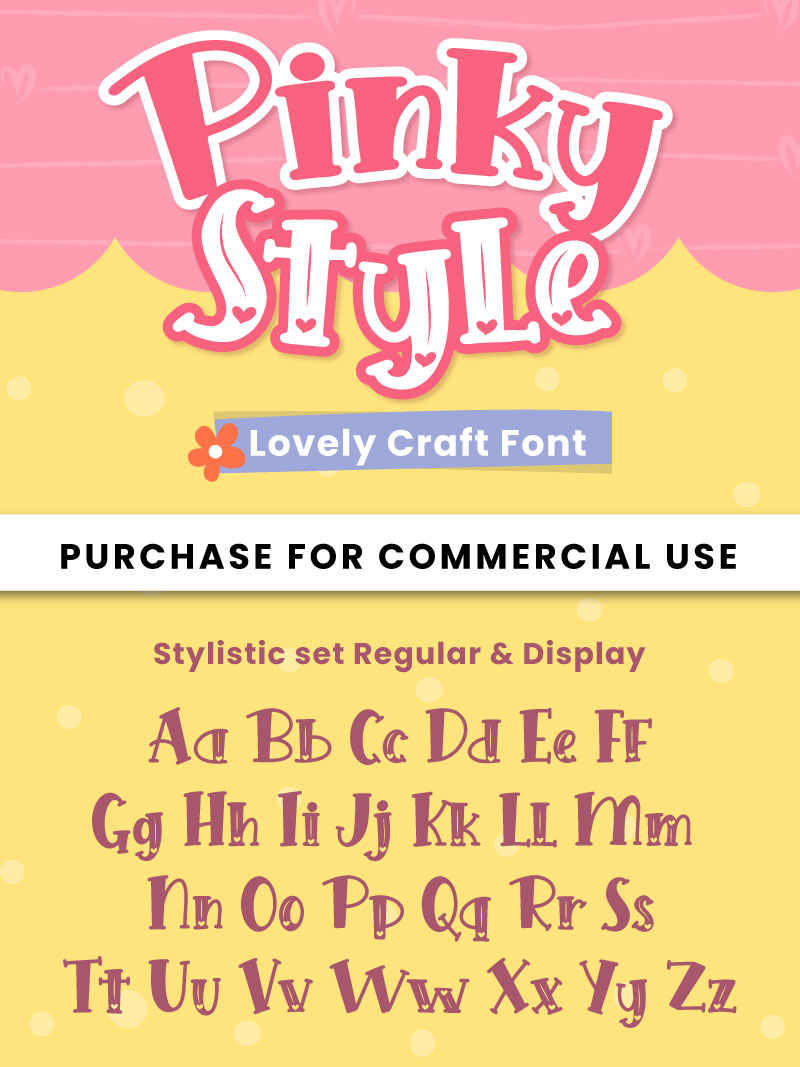
Pinky Style Display
Seeking a whimsical and charming display font with a playful touch? Look no further! Pinky Style is the perfect solution for designers looking to add a dash of childlike wonder to their projects. This quirky font features rounded edges, irregular shapes, and an endearing charm that's sure to delight.
Whether you're creating a cartoon-inspired design, crafting a children's game or app, or simply want to add some whimsy to your branding, Pinky Style is the perfect fit. Its sweet and playful personality makes it ideal for use in headings, titles, and short text snippets where you want to convey a sense of fun and playfulness.
This font's unique character is characterized by its irregular shapes, soft curves, and rounded edges, giving it a friendly and approachable feel. With Pinky Style, you can create designs that are sure to captivate audiences of all ages, from children to adults looking for a nostalgic or retro vibe.